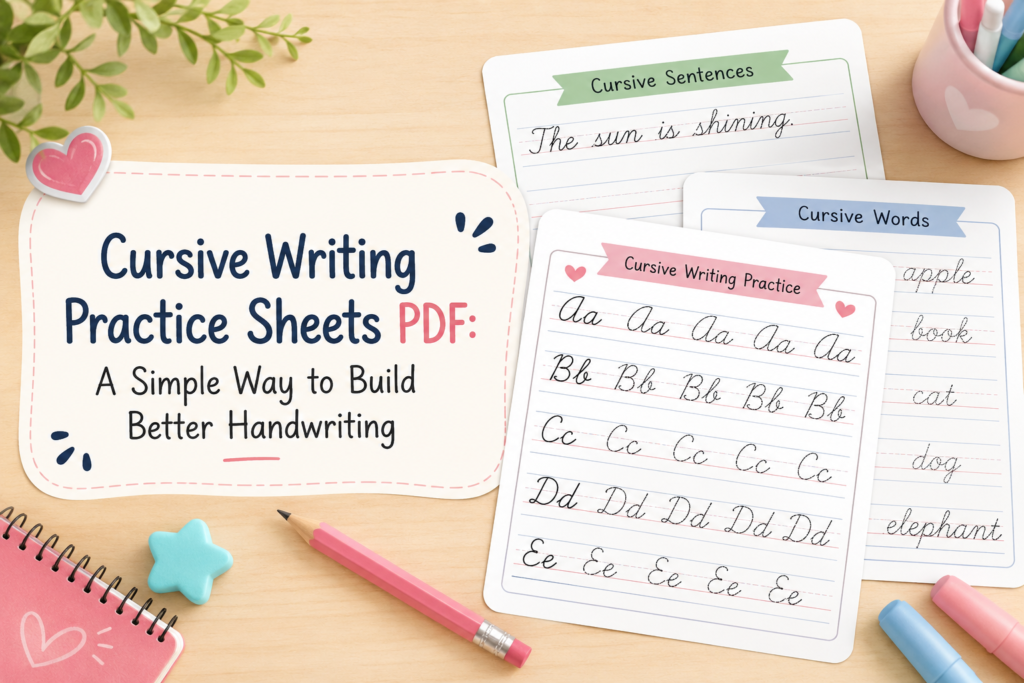
Handwriting feels like a dying skill until the moment you actually need it — signing a document, writing a card, or helping a child learn to connect letters smoothly instead of printing every word in blocky capitals. That’s usually when people start searching for cursive writing practice sheets PDF resources, hoping for something they can print at home without paying for a course or buying a workbook they’ll use twice.
The good news is that cursive doesn’t require fancy tools. A printable PDF, a pencil, and about ten minutes a day can rebuild muscle memory faster than most people expect. The tricky part is finding sheets that are actually structured well, instead of a random collection of looping letters with no logic behind the order.
Why People Still Look for Cursive Practice Sheets
Cursive isn’t taught consistently in schools anymore, which means a lot of teenagers and adults never fully picked it up, or they learned it years ago and lost the habit. Parents homeschooling their kids often go looking for printable sheets because curriculum kits can be expensive, and a free or low-cost PDF covers the same basics: letter formation, spacing, and connecting strokes.
There’s also a practical side to this. Cursive handwriting tends to be faster than print once it’s fluent, and for some people it’s simply easier on the hand during long writing sessions. Others want it for aesthetic reasons — journaling, calligraphy-adjacent hobbies, or just wanting handwriting that looks more personal than typed text.
Whatever the reason, the appeal of a PDF format is obvious: print it once, reuse it, hand it to a sibling later, or work through it on a tablet with a stylus.
What Makes a Practice Sheet Actually Useful
Not every printable is built the same way. A genuinely useful set of cursive writing practice sheets usually includes a few specific things.
First, dotted or traceable letters give the hand a guide before it has to work independently. Second, directional arrows show where a stroke starts and which way it loops, which matters more than people expect — cursive mistakes often come from starting a letter in the wrong spot, not from lack of practice. Third, lined paper with consistent spacing (not just blank space) helps with proportion, since cursive letters need to sit at the right height relative to each other.
Beyond single letters, good sheets move into letter pairs and short words fairly quickly. Practicing “th,” “ing,” or “ou” combinations builds the connections that make cursive look fluid instead of choppy. Sheets that jump straight from isolated letters to full sentences tend to skip a step that beginners actually need.
A Simple Structure for Practicing at Home
For anyone building a routine around printable sheets, a loose progression works better than randomly picking pages.
Start with lowercase letters grouped by stroke pattern — letters like c, a, d, and g share a similar starting motion, so practicing them together reinforces the same muscle movement. Uppercase letters can come next, since they’re often more decorative and harder to get consistent without first being comfortable with the lowercase forms.
After individual letters feel steady, move into short words, then full sentences. Pangrams (sentences using every letter of the alphabet) are a common choice here because they cover the most ground in the fewest lines. From there, copying a paragraph or even writing freely in cursive is a reasonable final stage.
Ten to fifteen minutes a day tends to work better than long, infrequent sessions. Handwriting is a physical skill, closer to learning an instrument than memorizing facts, so short and consistent practice beats cramming.
Printing Tips That Actually Matter
A few small details affect how usable a printed sheet ends up being. Standard printer paper works fine, but slightly heavier paper (24lb or higher) holds up better if a child or beginner erases often. Printing in grayscale instead of color saves ink without losing any functionality, since most cursive worksheets don’t rely on color anyway.
It’s also worth checking the line spacing before printing a full set. Sheets designed for adults sometimes use tighter lines than what’s comfortable for a young child still developing fine motor control. If a PDF includes multiple line-width options, picking the wider spacing for early learners avoids unnecessary frustration.
Who Tends to Use These Sheets
It’s not just elementary school kids. Homeschool parents are a major group, often layering cursive practice into a broader language arts routine. Teachers use printable sheets as supplemental classroom material, especially in districts where cursive isn’t part of the core curriculum anymore but individual teachers still want to offer it.
Adults make up a surprisingly steady portion of searches too — people relearning cursive for journaling, wedding invitation lettering, or simply because their handwriting became illegible after years of typing everything. For this group, sheets that skip the cartoonish kid-focused design and use a cleaner, more neutral layout tend to be preferred.
Final Thoughts
Cursive handwriting isn’t as obsolete as it sometimes feels. A well-structured set of practice sheets, used consistently over a few weeks, is usually enough to take someone from shaky, disconnected letters to handwriting that actually looks intentional. The format — PDF, printable, reusable — makes it easy to fit into a routine without needing a class or a subscription. The skill itself hasn’t changed much in decades; what’s changed is simply how people choose to relearn it.